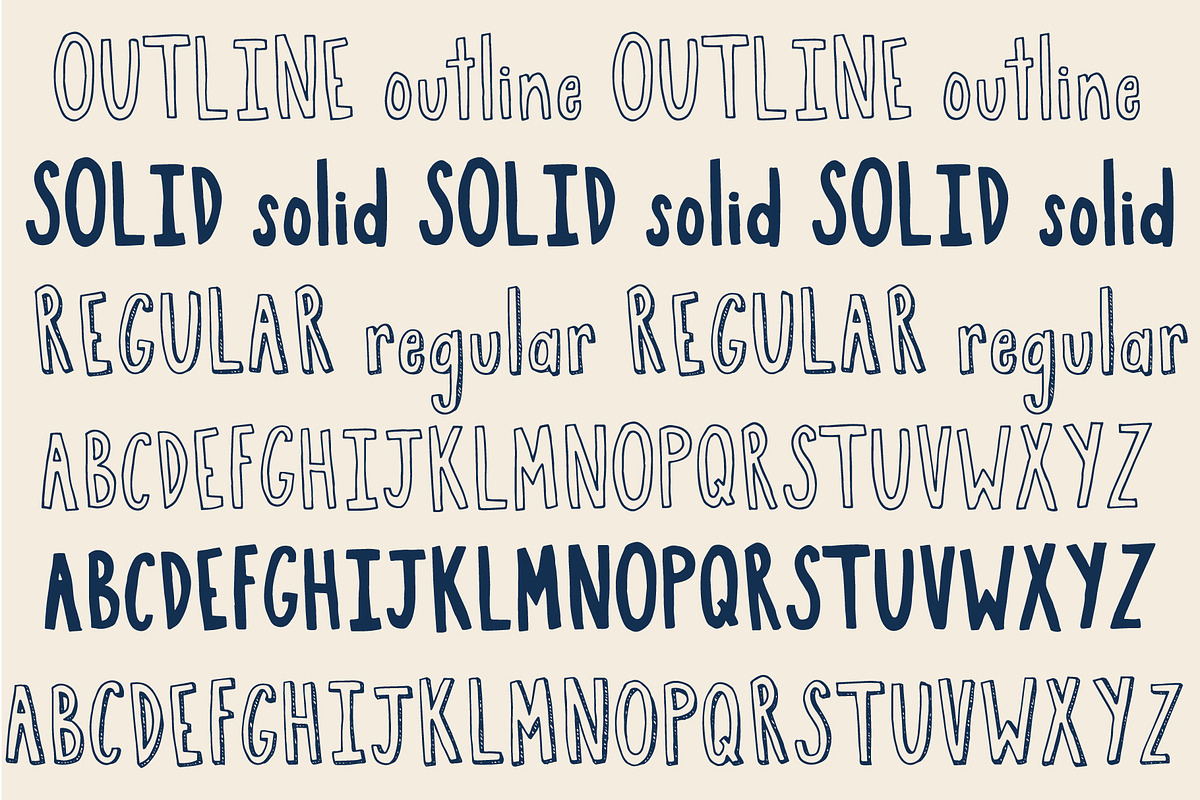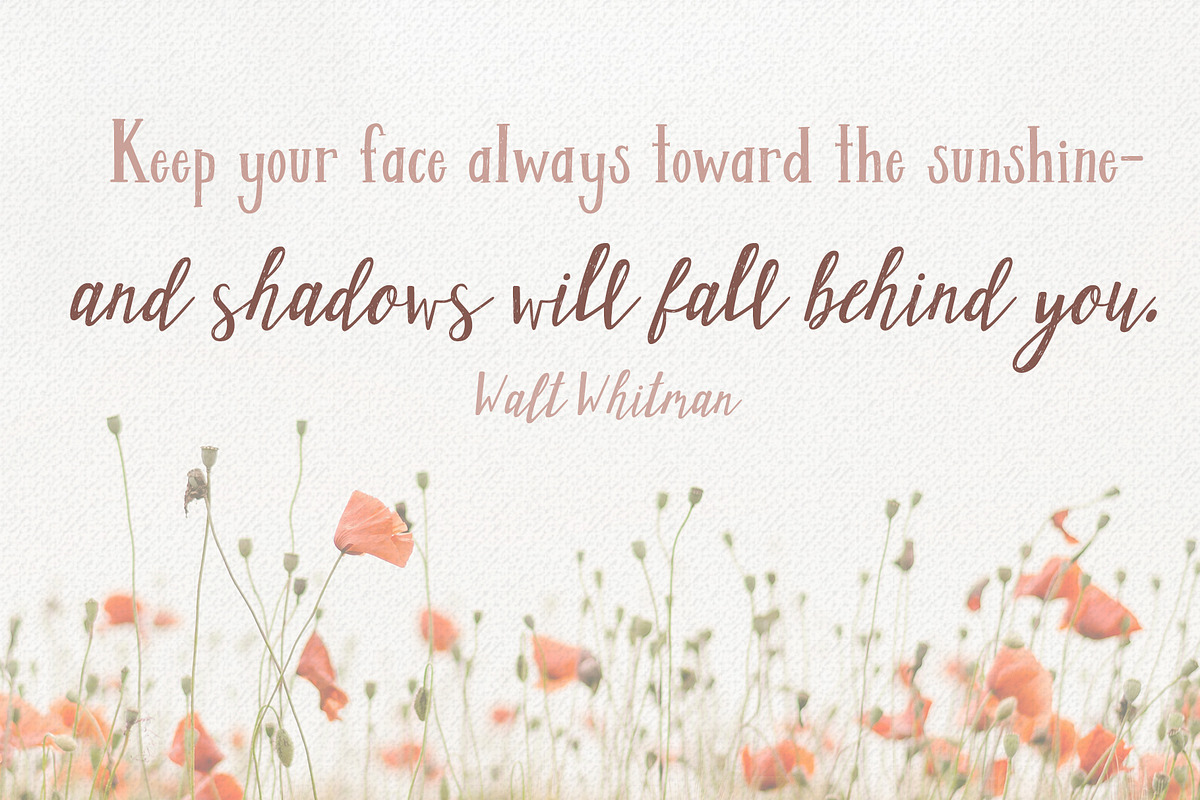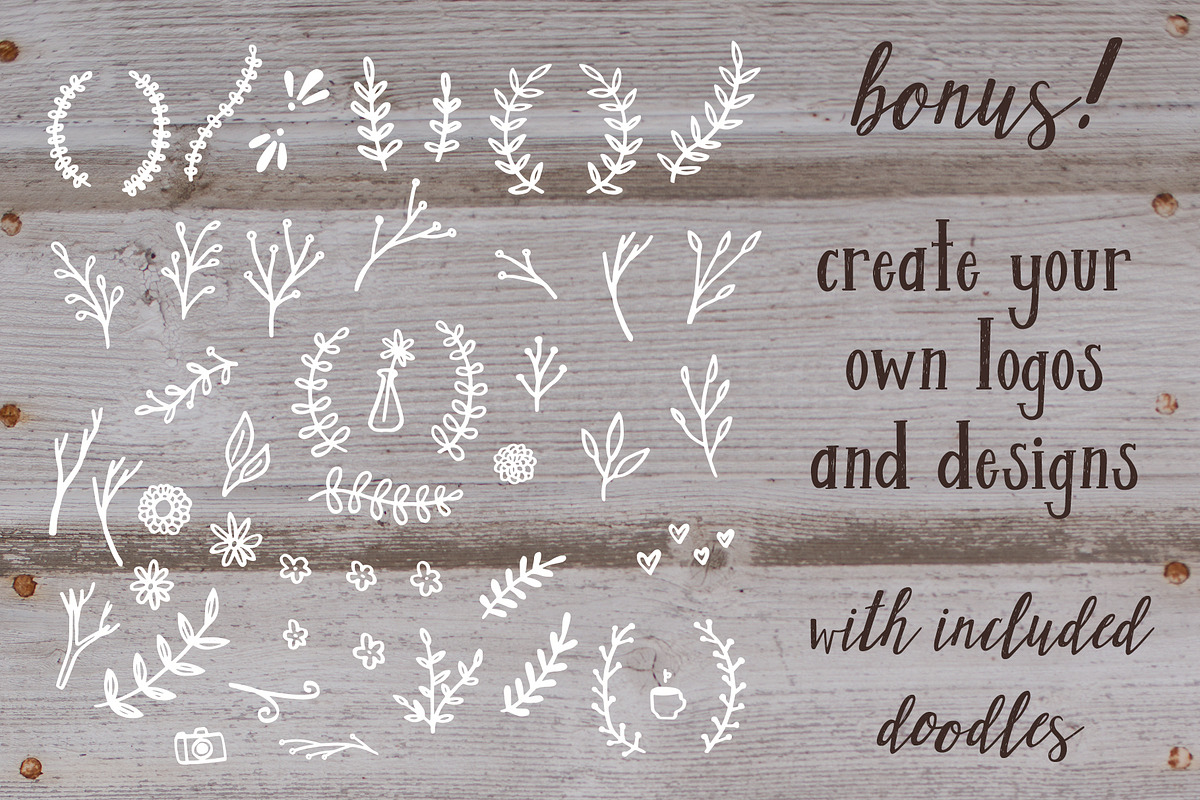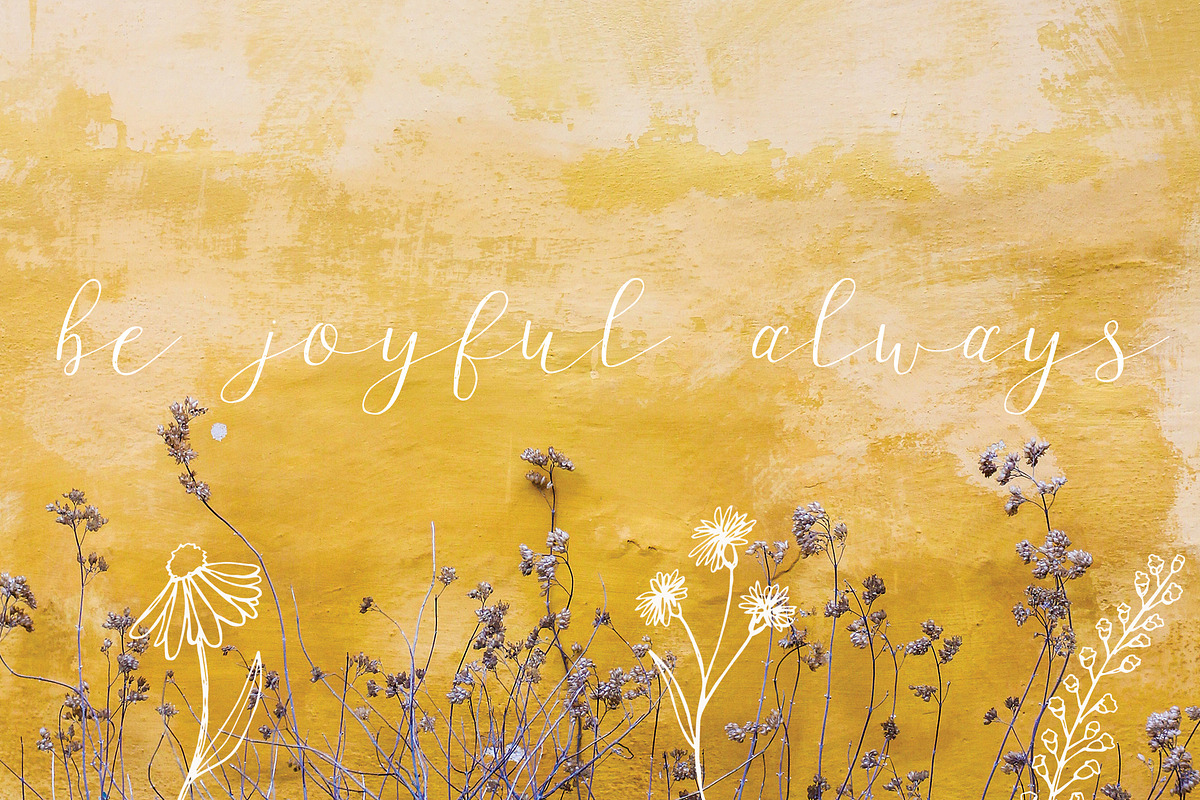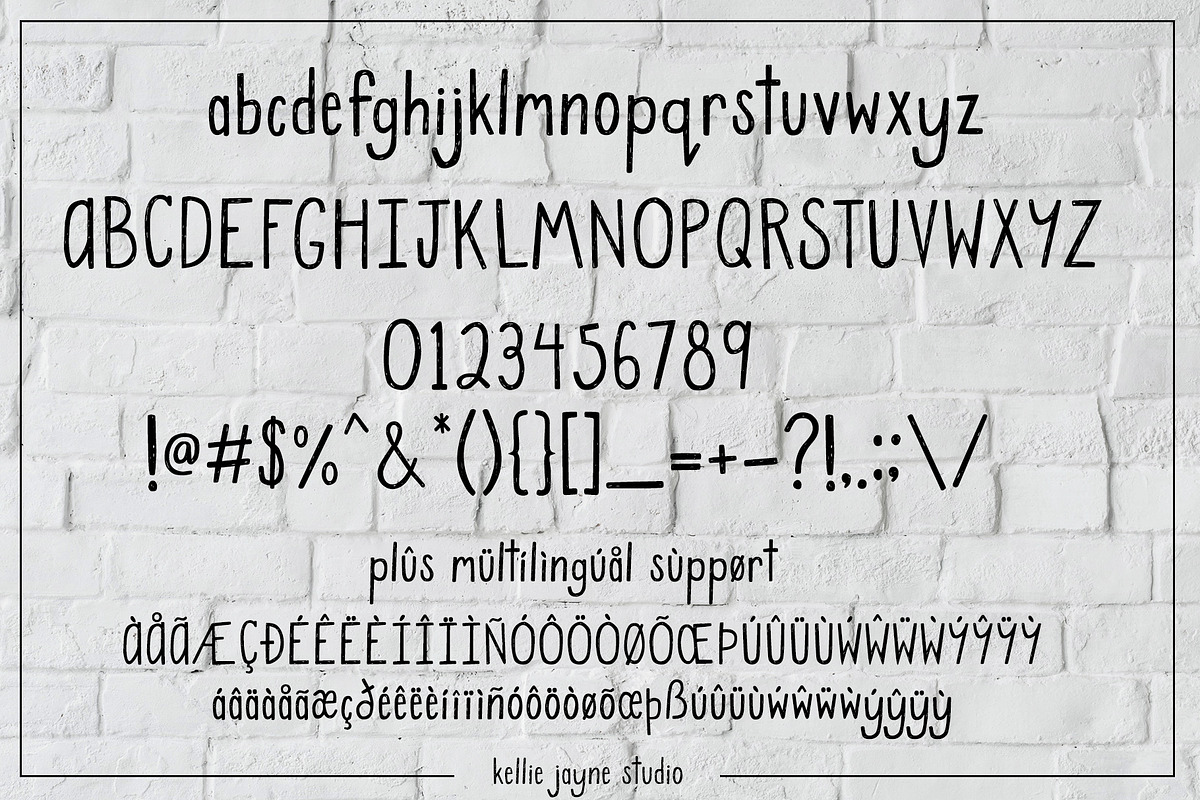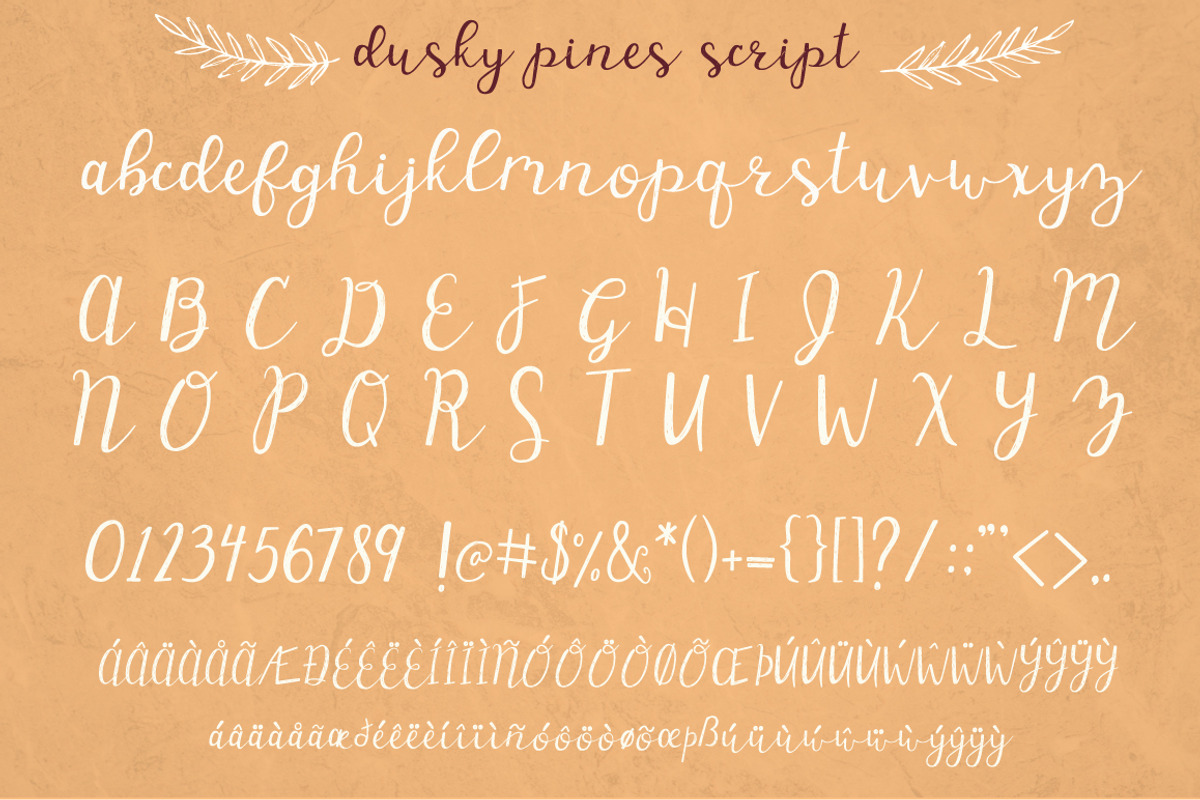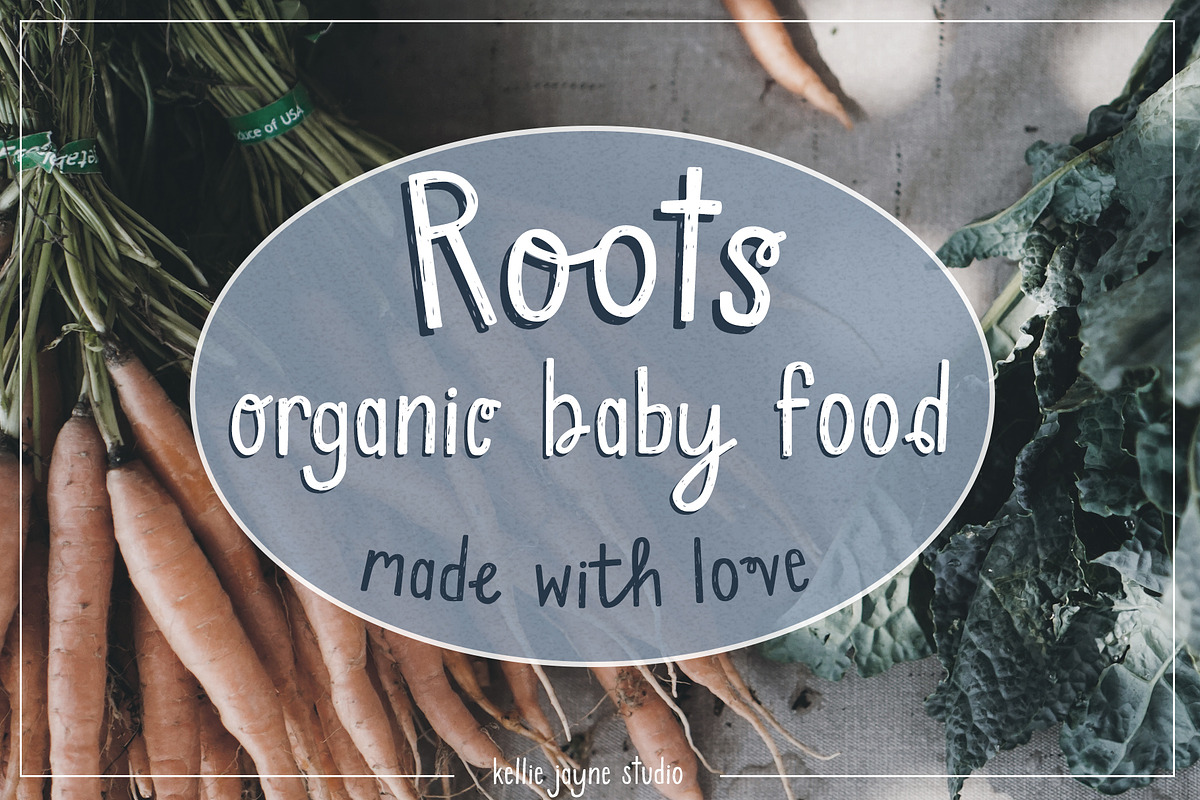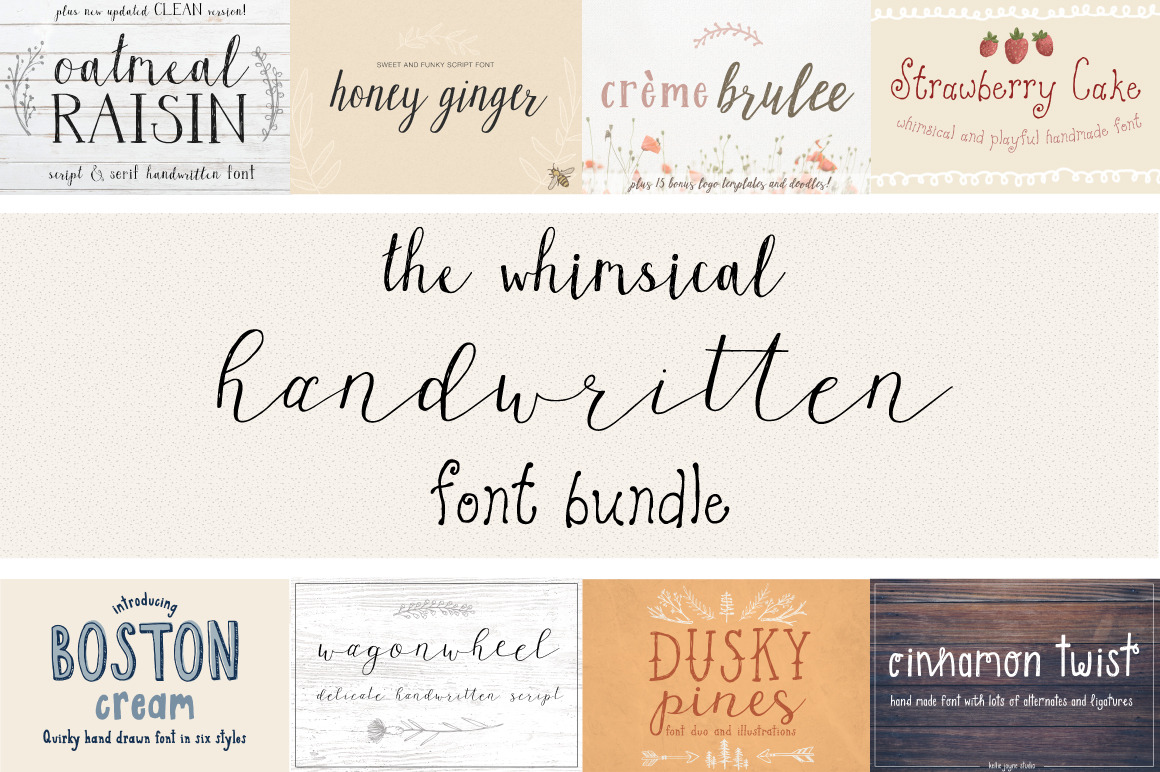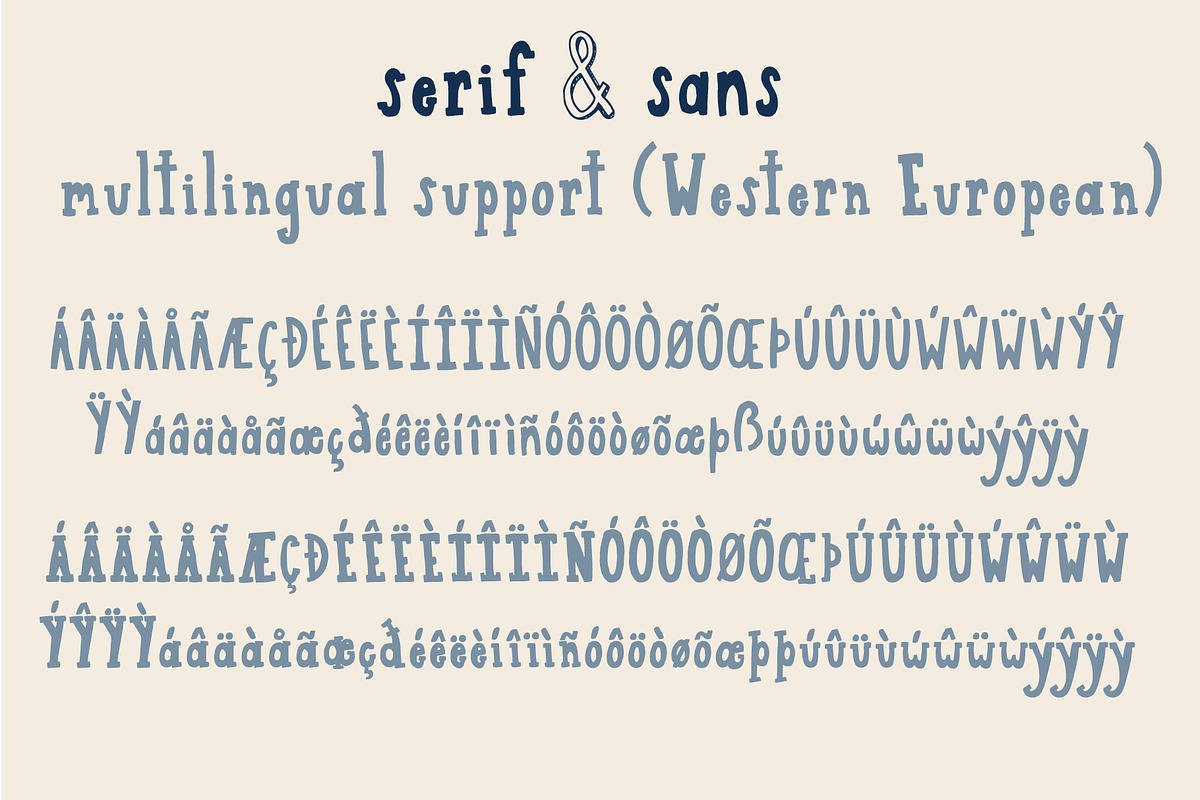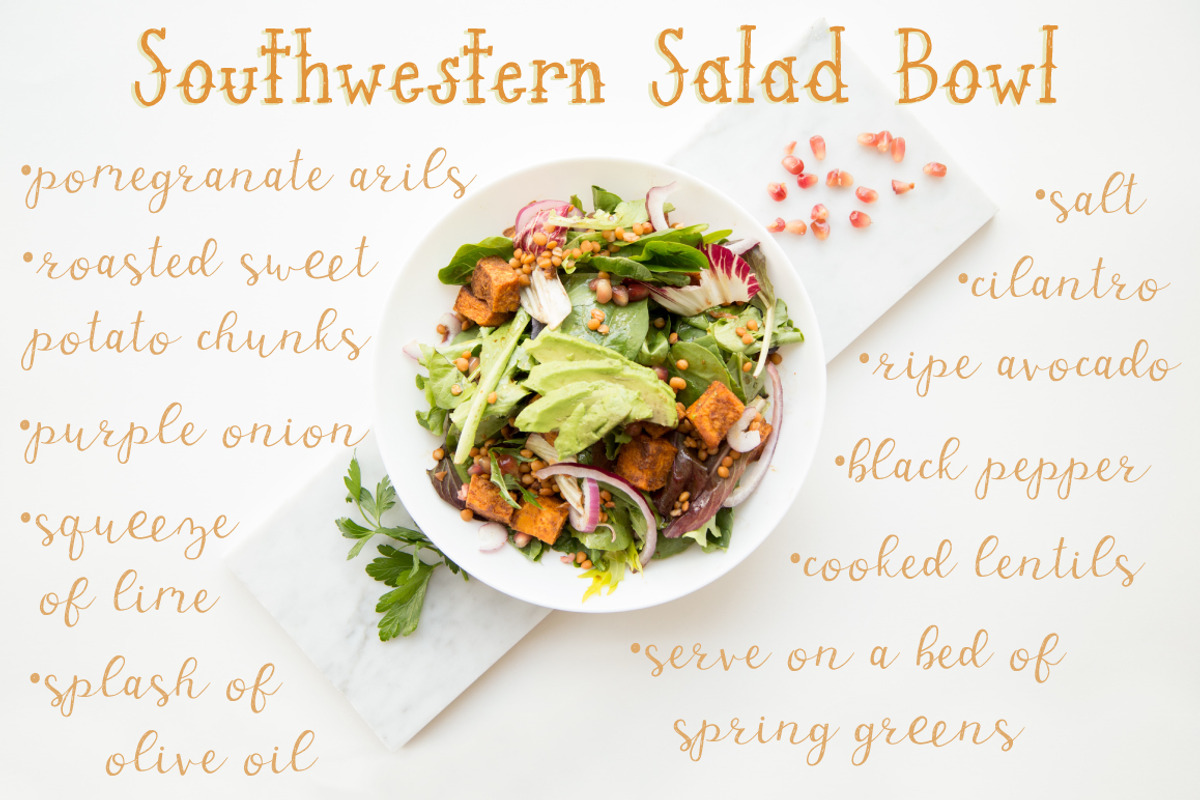
Whimsical Handwritten Font Bundle
The Whimsical Handwritten Font Bundle This bundle includes 18 lovingly handwritten fonts in a variety of styles: script, serif, sans, and outline fonts. They all have a whimsical and playful quality. Many hand drawn illustrations are also included to add a unique touch to your designs!
Products Included: